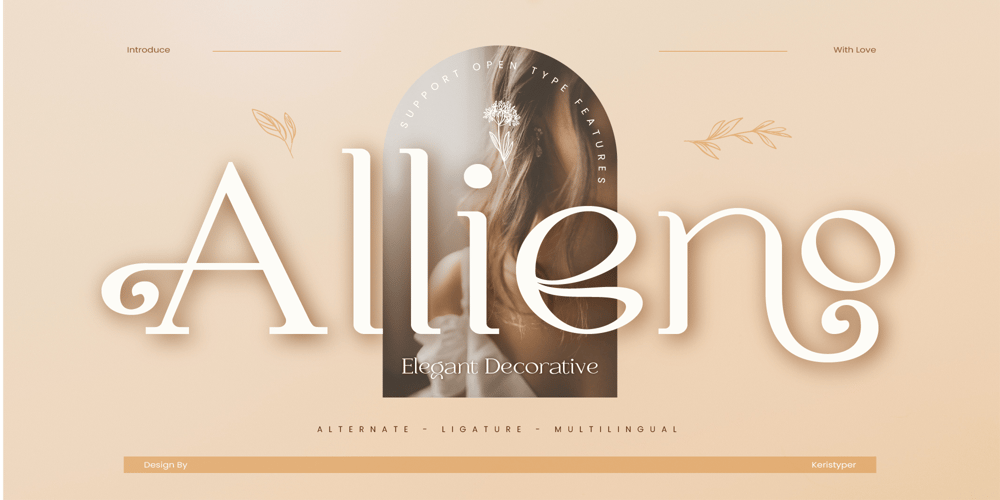
Allieno
Allieno font
Allieno Font Family was designed by Tezar Tantular and published by Keristyper Studio. Allieno contains 1 styles and family package options. Allieno font is a stunning and ornate typeface that adds a touch of elegance and sophistication to any project. Its intricate and decorative design makes it perfect for use in wedding invitations, greeting cards, and other special occasions.Featured: Standard, Uppercase & Lowercase Numeral & Punctuation Multilingual : ä ö ü Ä Ö Ü ß ¿ ¡ Alternate & Ligature PUA encoded We recommend programs that support the OpenType feature and the Glyphs panel such as Adobe applications or Corel Draw, so you can use all the variations of the glyphs.Hope you enjoy our fonts!